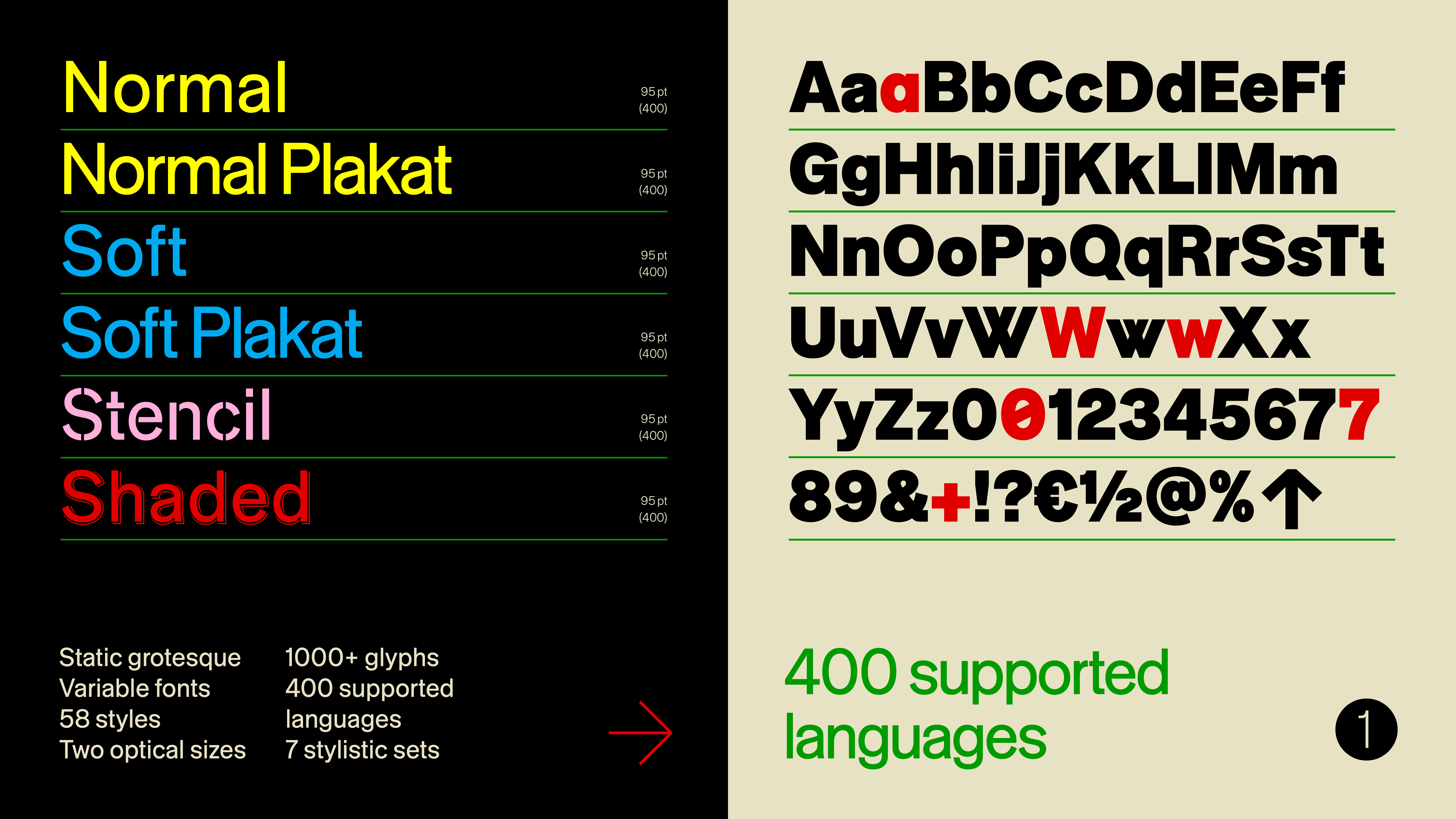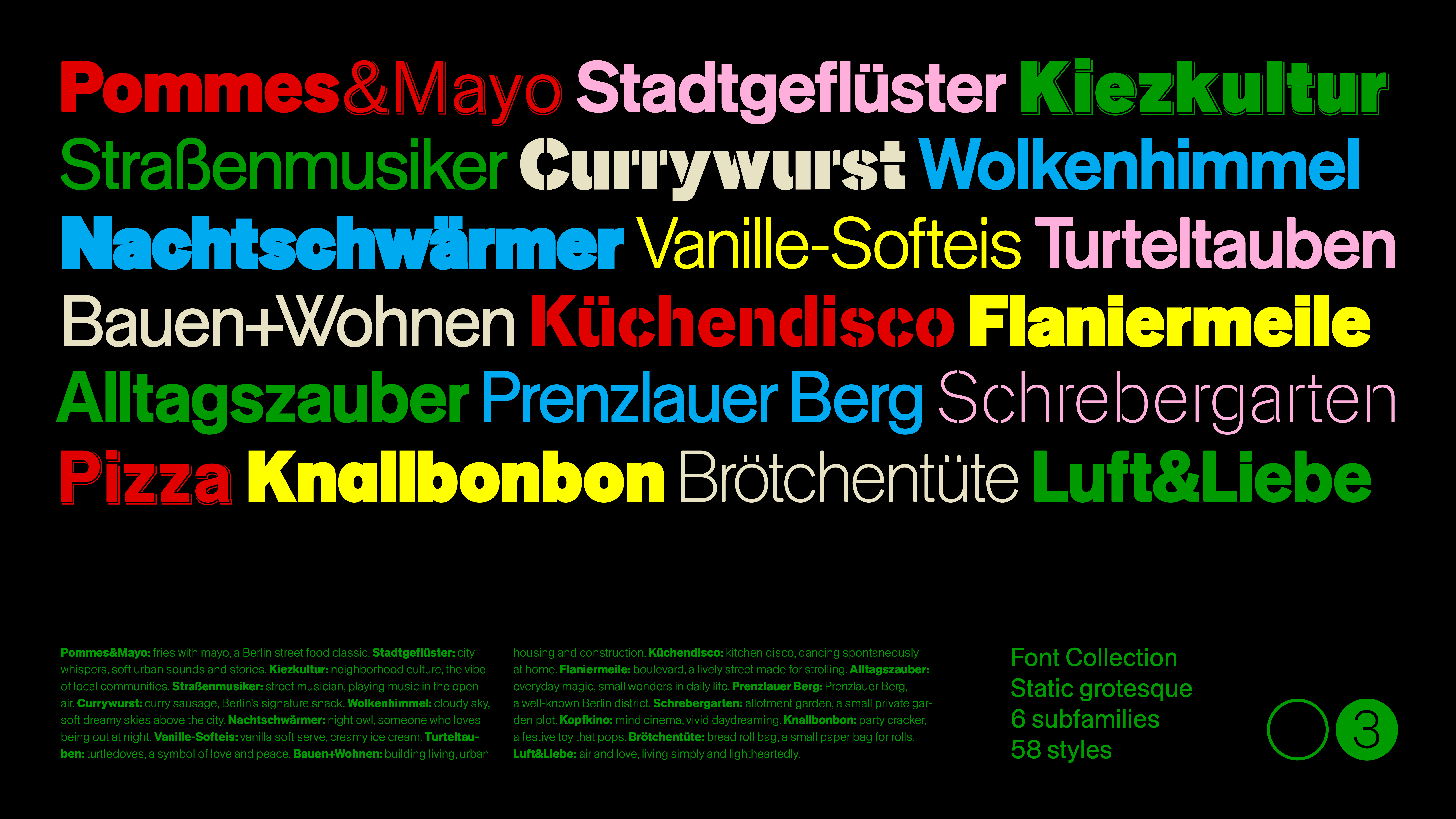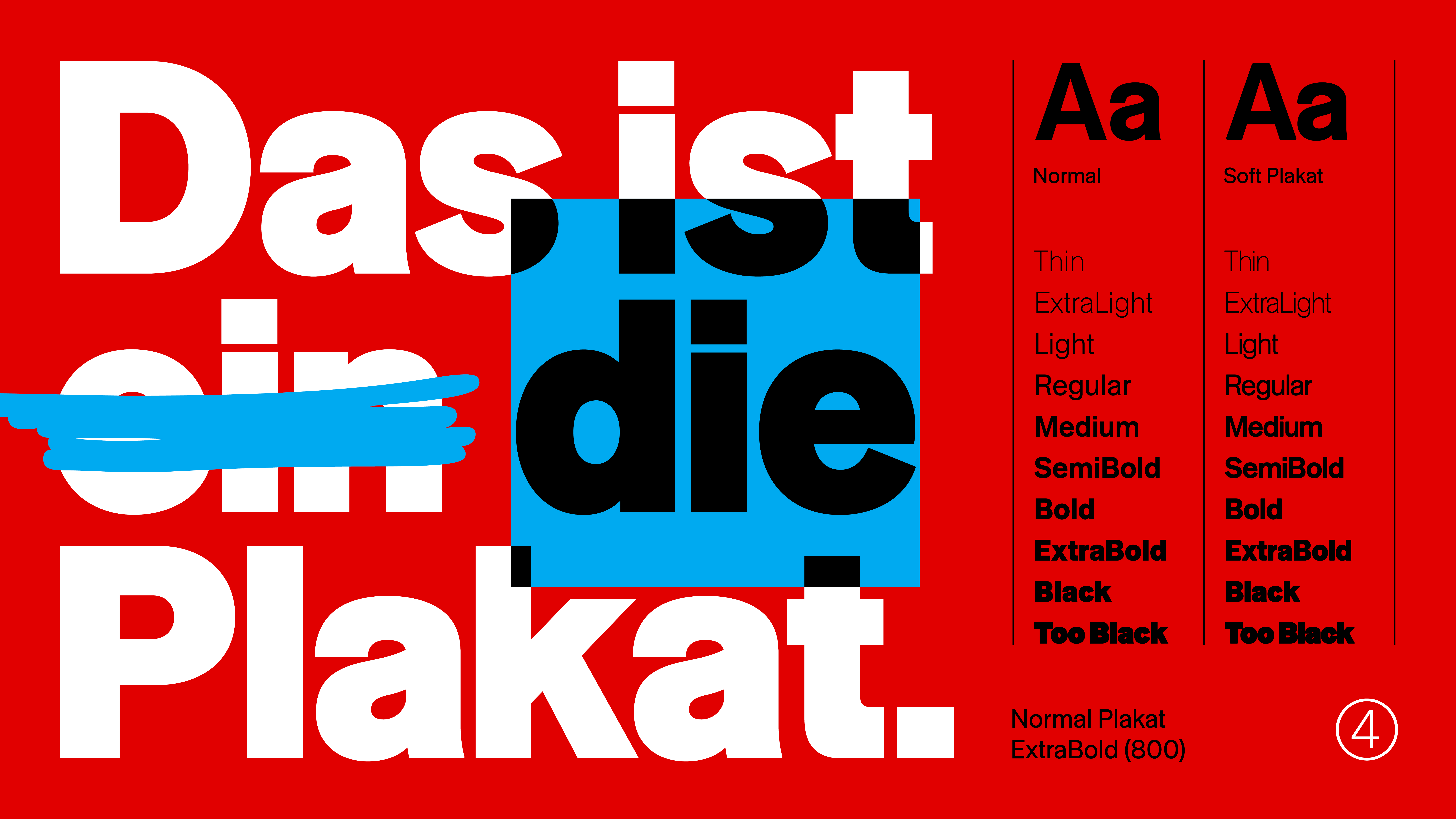
Tausend
Tausend is not a revival but a homage. The small apertures, gentle top-heaviness, curved feet and ‘angular’ curves make Tausend proud, loud and confident. The Typeface Collection offers a comprehensive and infinitely versatile system that is at the forefront of variable font technology and includes over 1000 variable weights and glyphs to play with, including 100 extra-bold weights marked with the label “Too Black” (a treasure trove for anarchists and avant-gardists).
Six subfamilies are provided: Parallel to the “classic” Tausend with the optical size of Plakat, there are Tausend Soft and Tausend Plakat Soft. Two other versions are aimed at use in larger sizes—an elegant Stencil version and Tausend Shaded, a grotesque, whose shadows adapt visually to the weight.